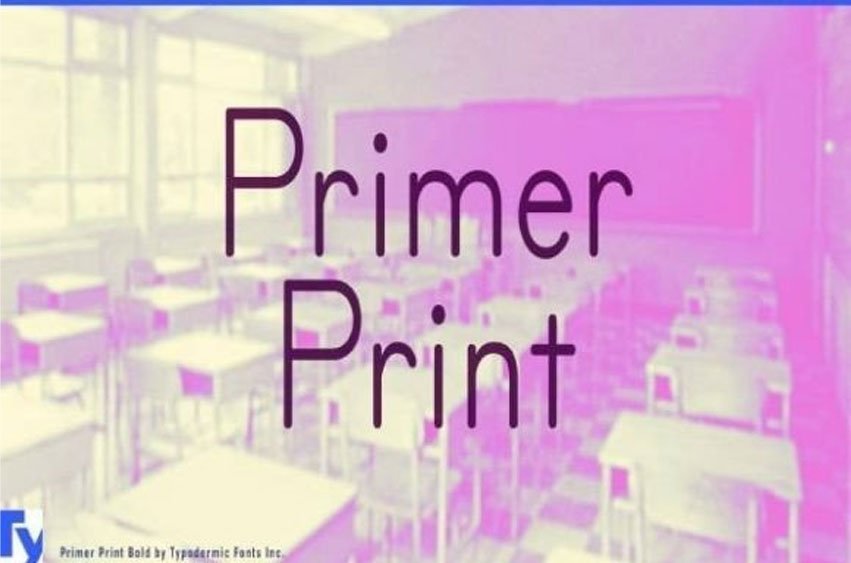
Primer Print Font
Primer Print Font is inspired by teaching materials for printing.
Warm, elegant, and with a familiar appearance, this typeface will give your product the wow factor you are looking for.